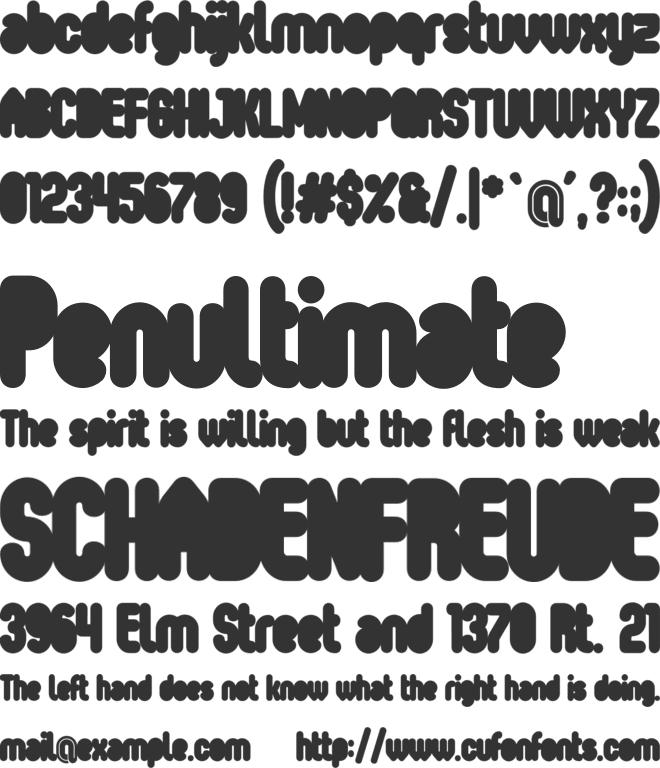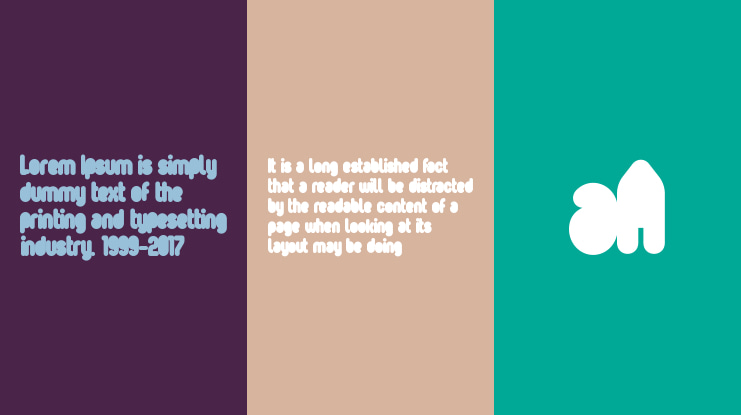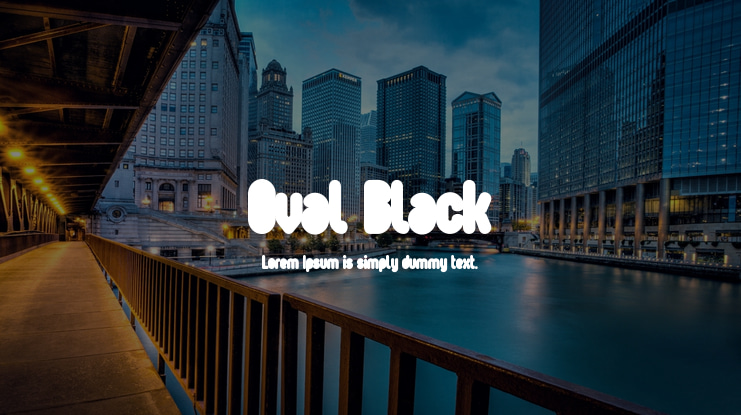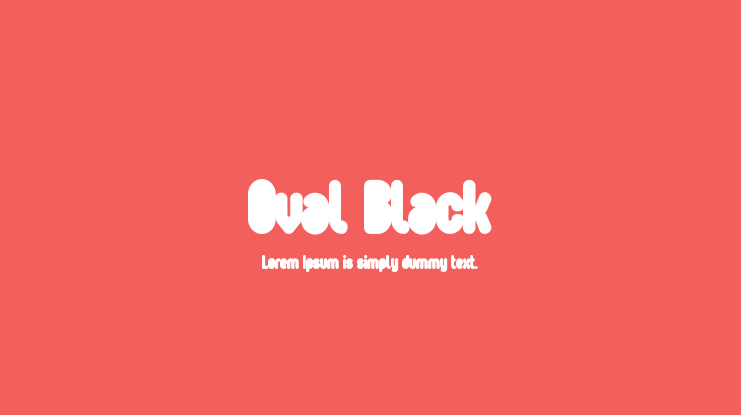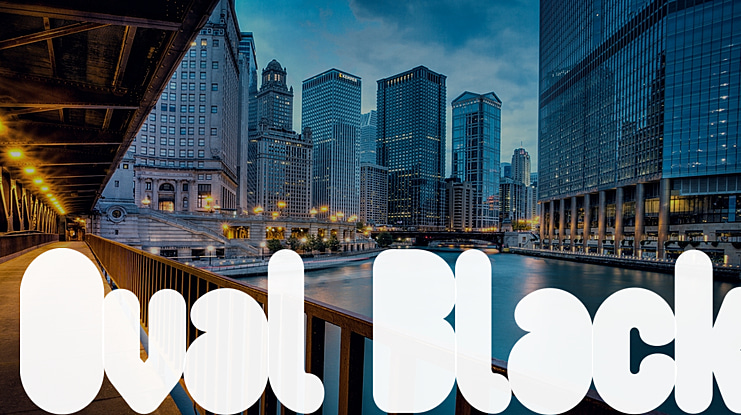
Oval Black Font Family
Oval is a custom sans font which is applicable for any type of graphic design - web, print, motion graphics etc and perfect for t-shirts and other items. The complete family consists of 12 styles.